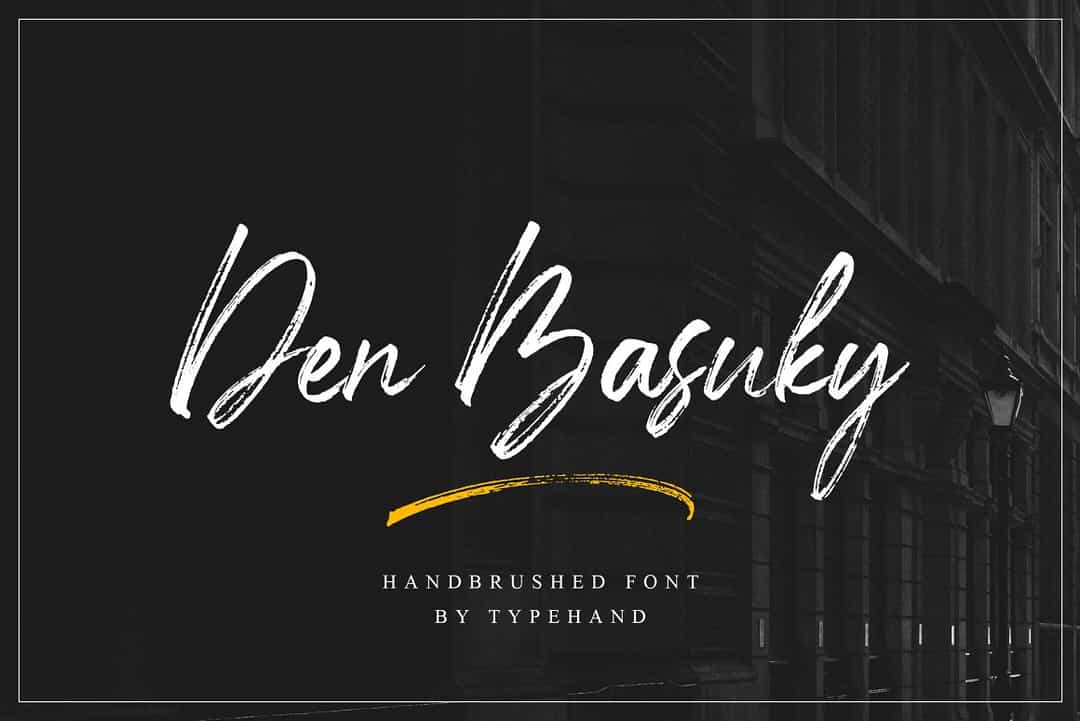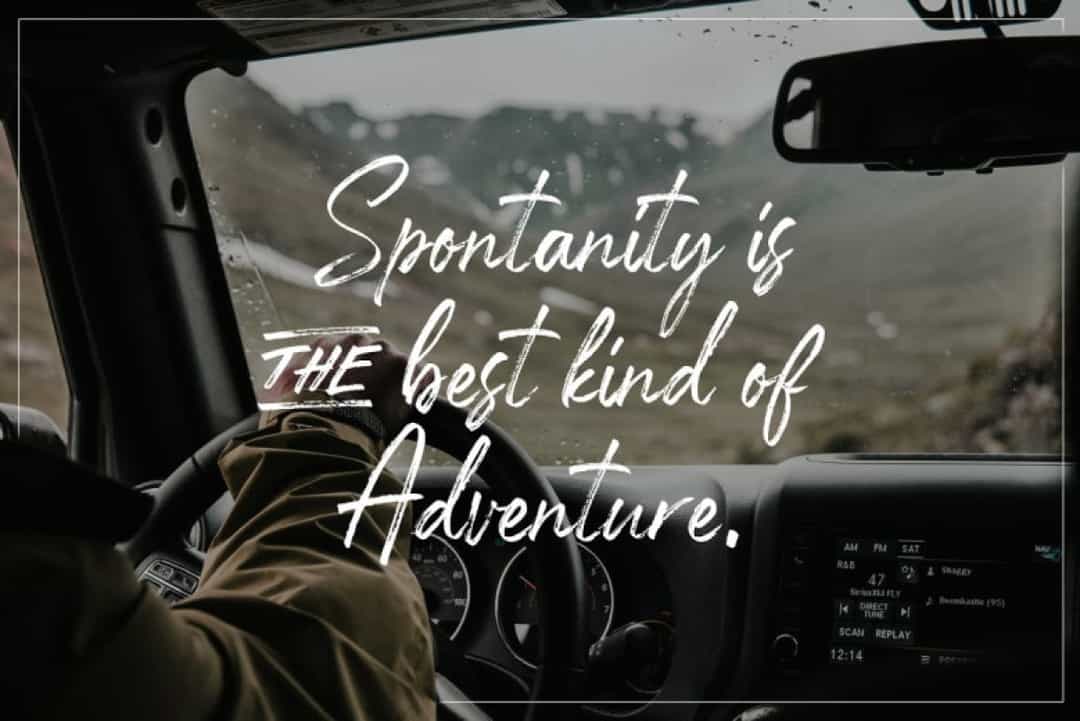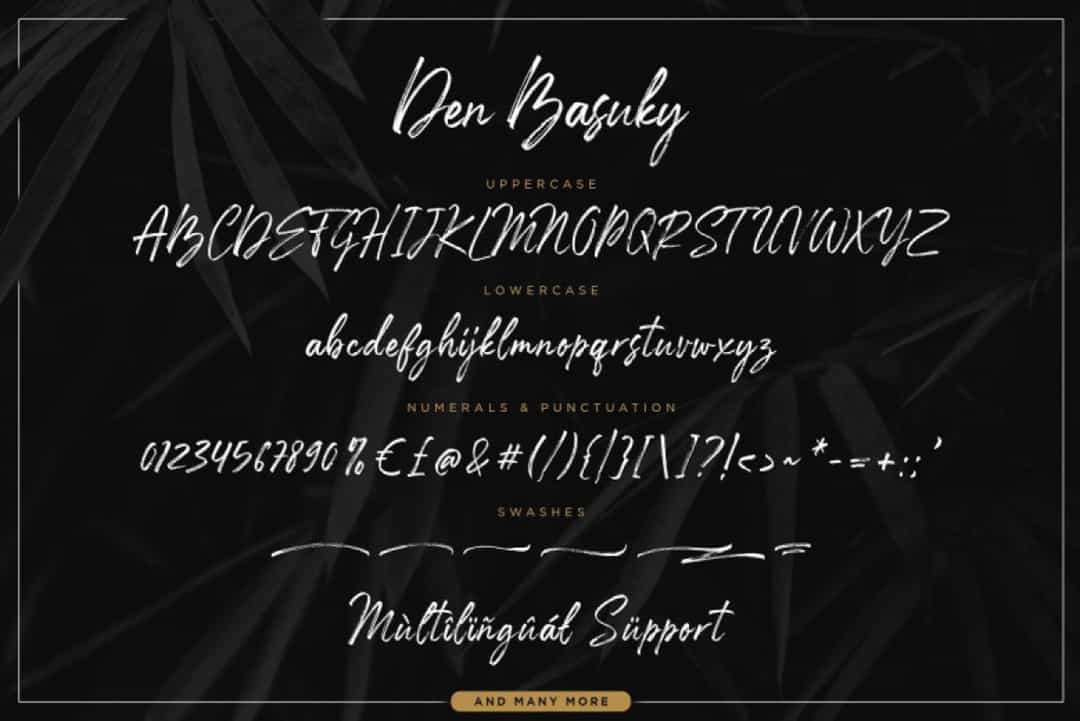
Den Basuky was created from scratch with scratch brushes, creating its rustic charm. Swashes make Den Basuky even more desirable. Perfect for branding homeware, project packaging, t-shirts or any product styles or simply as an attractive text overlay on any image background, Den Basuky can bring charm and texture into any setting.